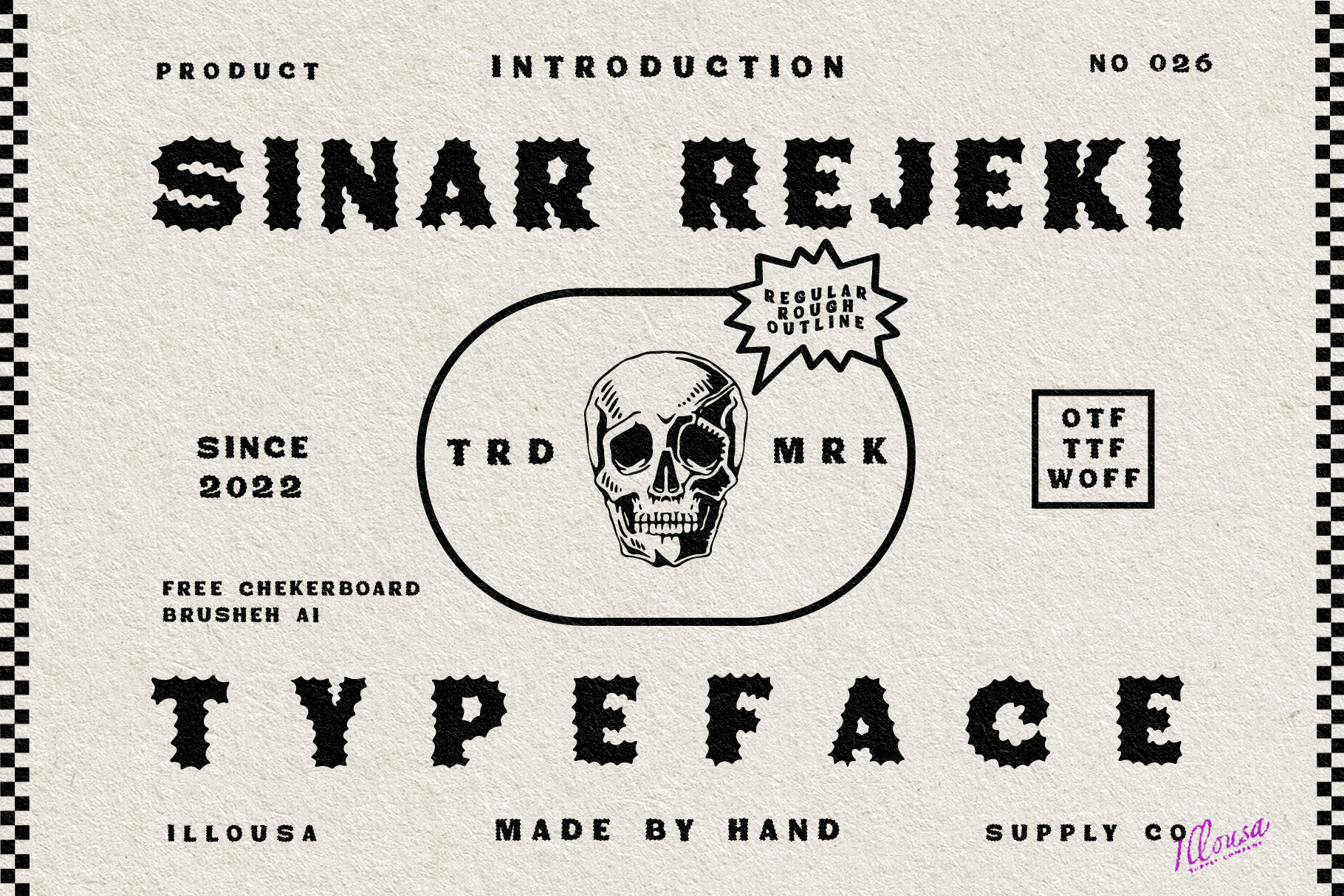
Sinar Rejeki Typeface
INTRODUCTION : SINAR REJEKI
Sinar Rejeki is Tattoo Font inspired by gothic writing and looks simpler and very friendly to use in any medium, made using handdrawing techniques with untidy lines.